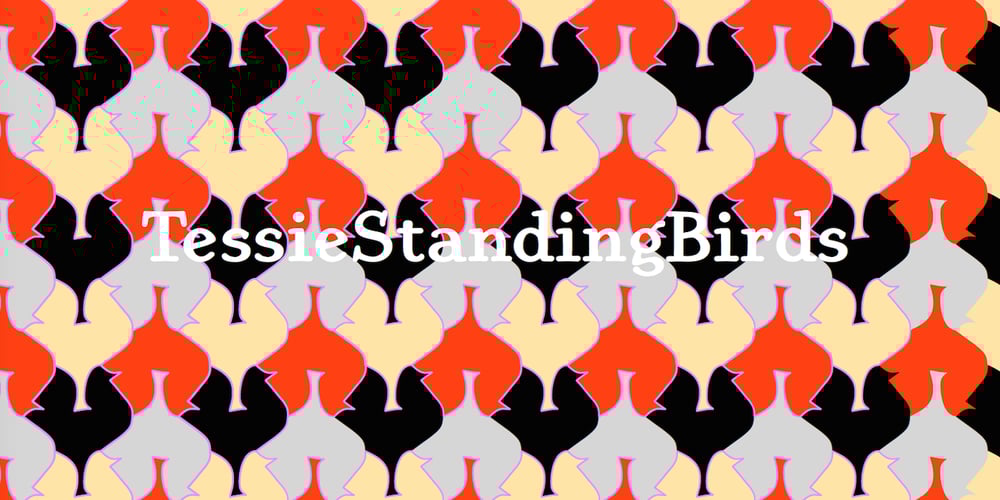
TessieStandingBirds
TessieStandingBirds font
TessieStandingBirds Font Family was designed by Robert Schenk and published by Ingrimayne Type. TessieStandingBirds contains 2 styles and family package options. A tessellation is a shape that can be used to completely fill the plane—simple examples are isosceles triangles, squares, and hexagons. Tessellation patterns are eye-catching and visually appealing, which is the reason that they have long been popular in a variety of decorative situations. These Tessie fonts have two family members, a solid style that must have different colors when used and an outline style. They can be used separately or they can be used in layers with the outline style on top of the solid style. For rows to align properly, leading must be the same as point size. Shapes that tessellate and also resemble real-world objects are often called Escher-like tessellations. This typeface contains Escher-like tessellations of birds. A number of years ago I decided to see how many of the 28 Heesch types of tessellations I could use to make birds standing on the backs of other birds. I found standing bird patterns for all 17 of the types that had either translated or glided edges. The TessieStandingBirds typefaces contain the standing-bird shapes that I discovered. At first glance they seem to be quite similar, but small differences matter in how they fit together. Most of the patterns require more than one character. The sample file here shows how pieces fit together to give tessellating patterns. (Earlier tessellation fonts from IngrimayneType, the TessieDingies fonts, lack a black or filled version so cannot do colored patterns.)